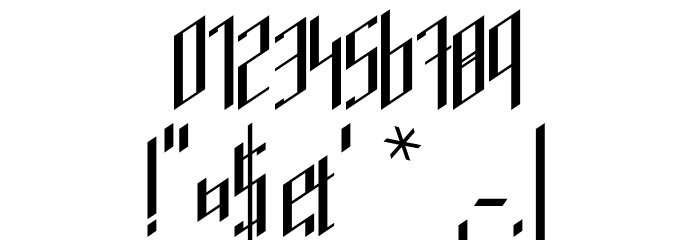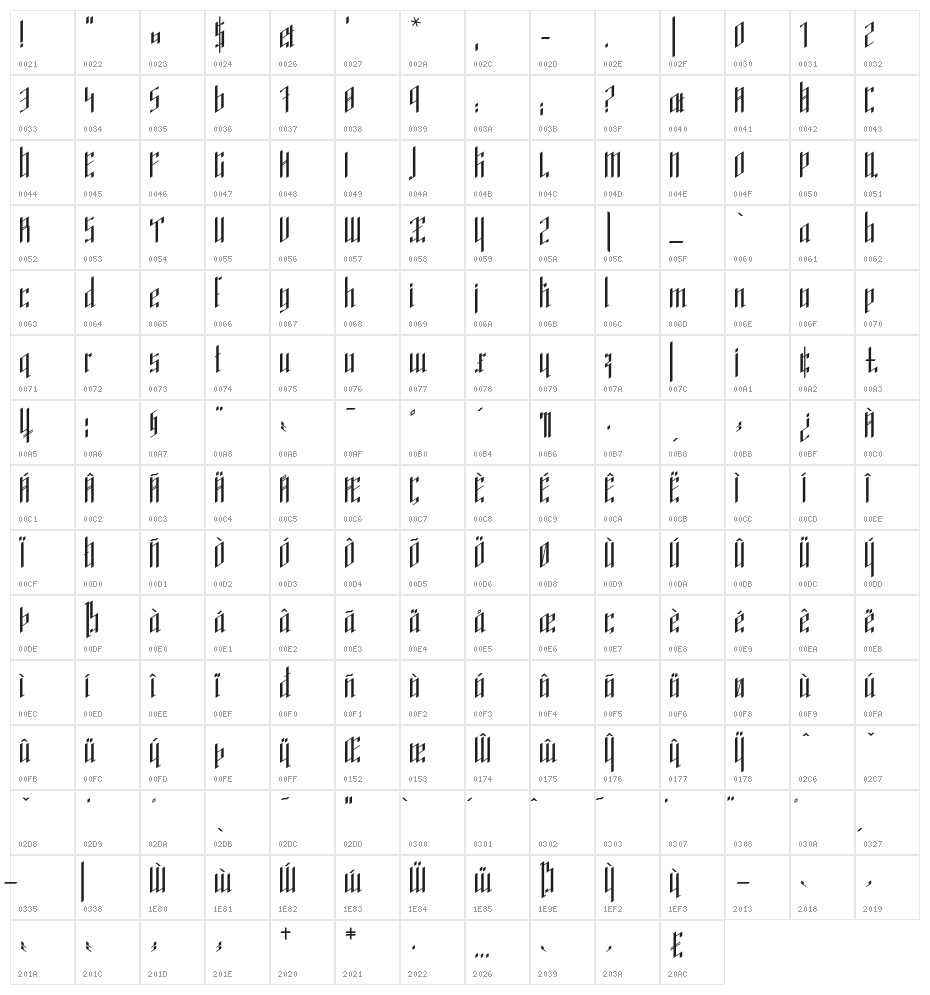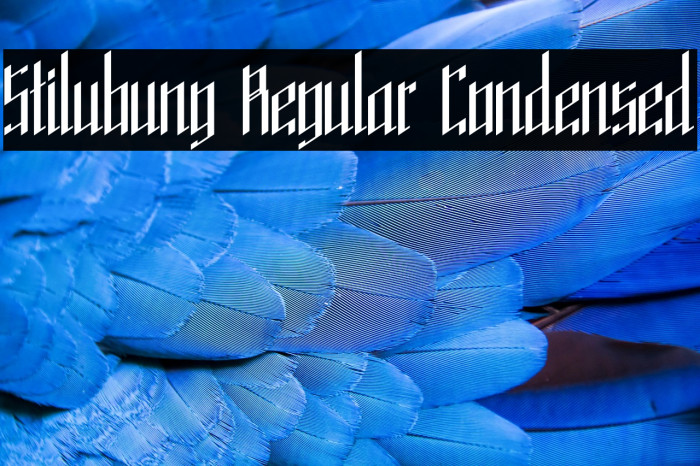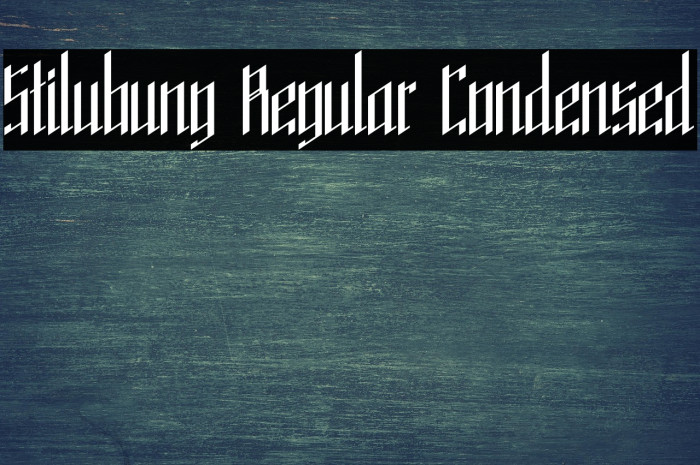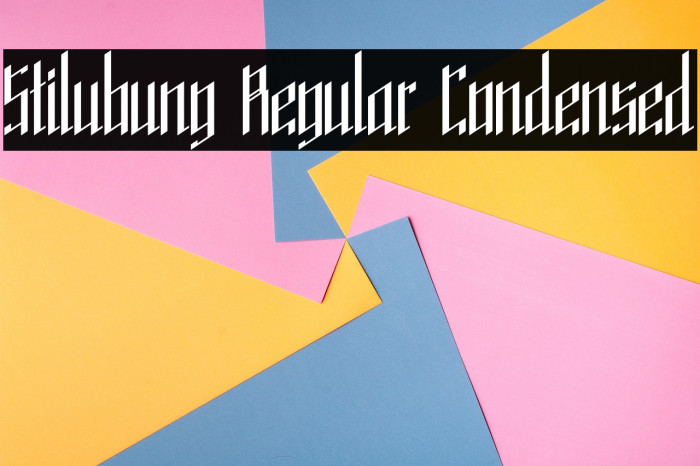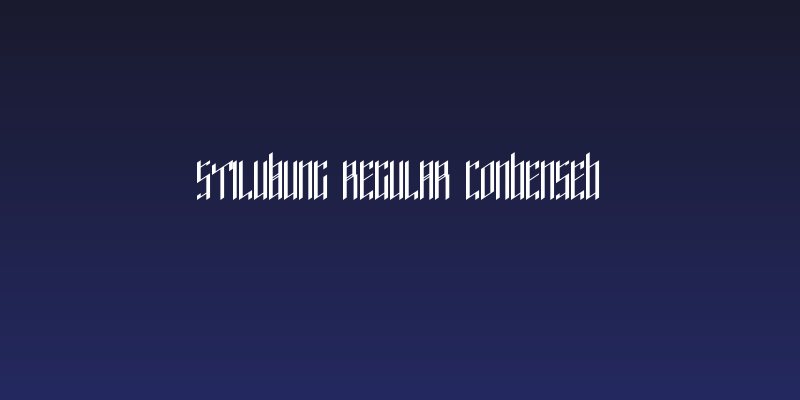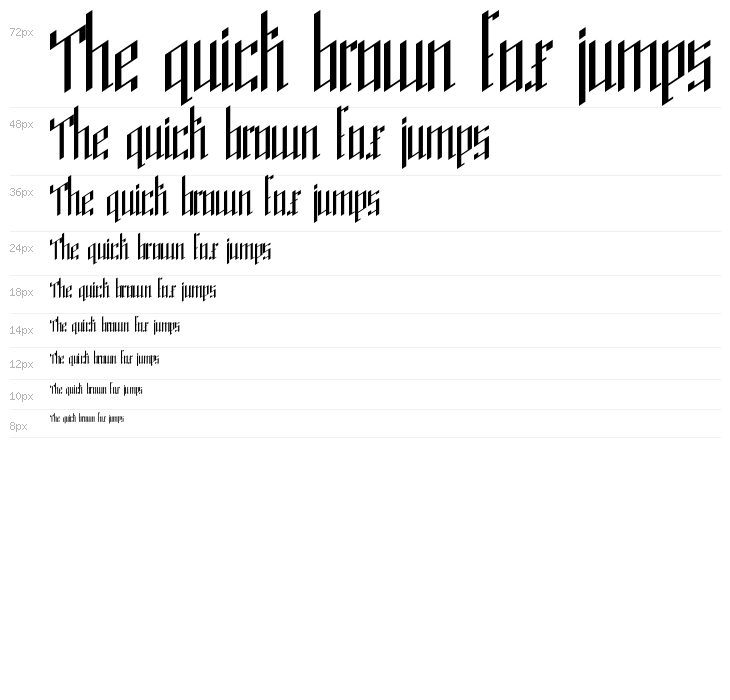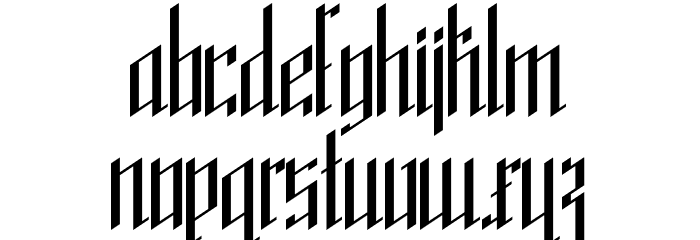
Stilubung Regular Condensed Font
Stilubung Regular Condensed Description
This font features a distinctively sharp and angular design, characterized by its condensed and elongated letterforms. The strokes are bold and consistent, giving it a strong visual impact. The uppercase and lowercase letters maintain a uniform height, enhancing its geometric appearance. The numerals and special characters follow the same angular style, ensuring a cohesive look across all elements. The font's unique style makes it stand out, with a modern twist on traditional blackletter influences. Its condensed nature allows for efficient use of space, making it suitable for designs where space is limited but impact is essential.